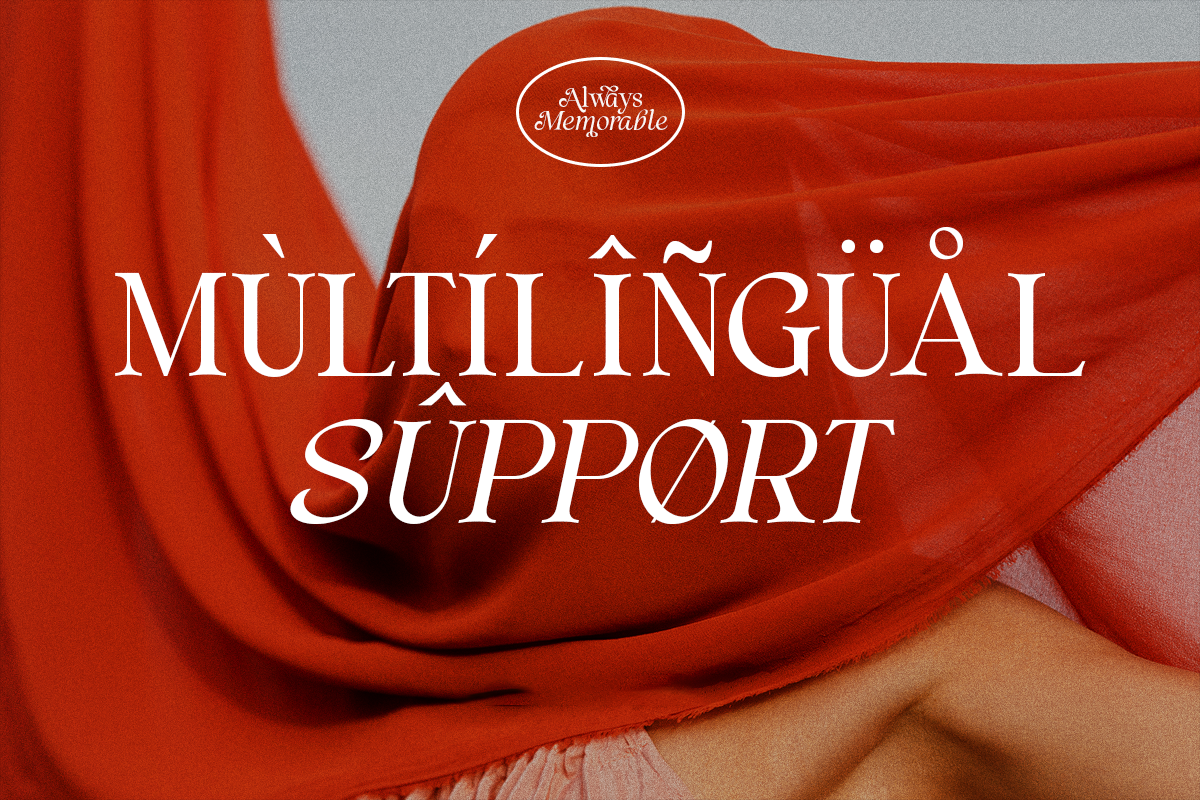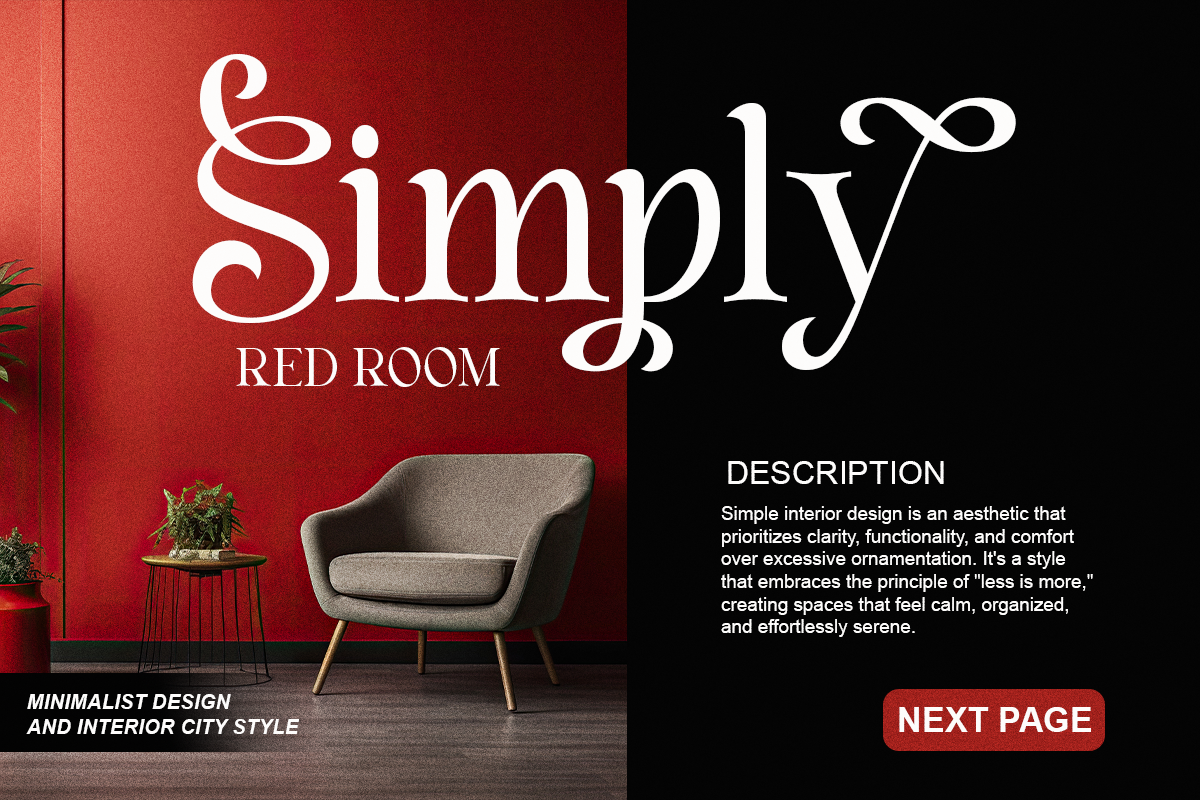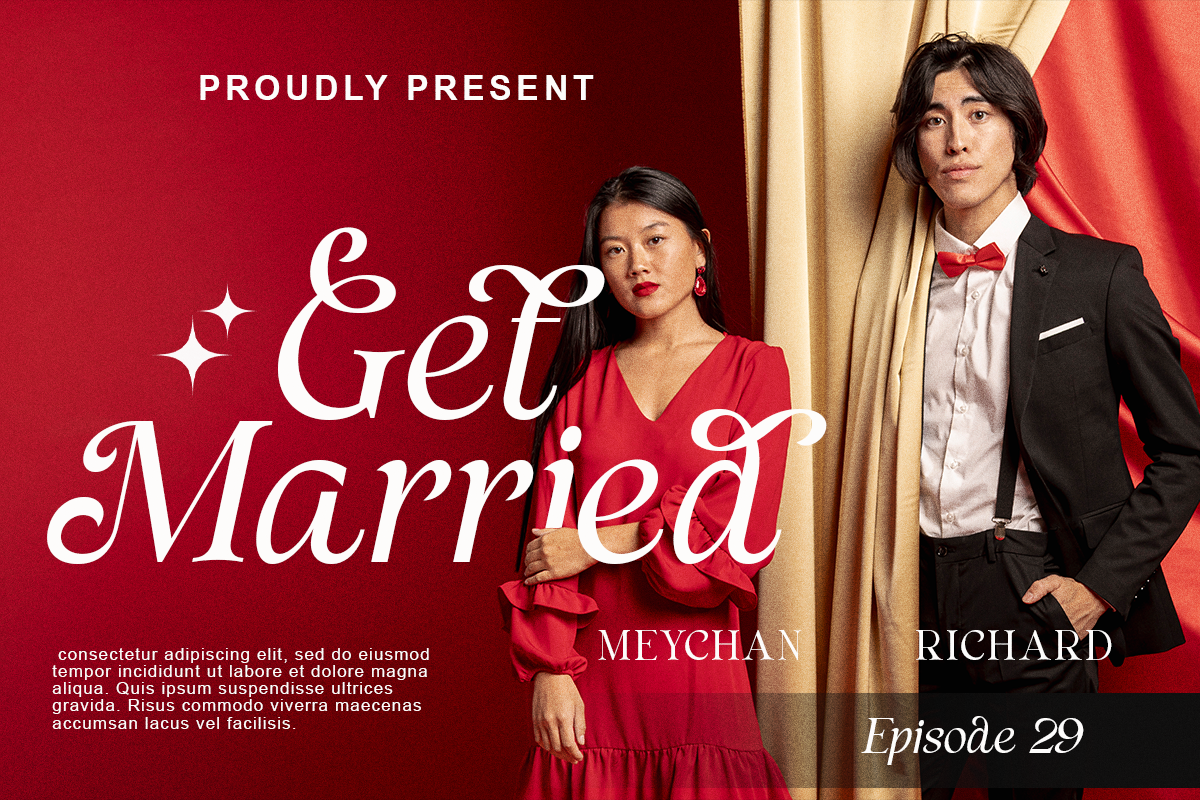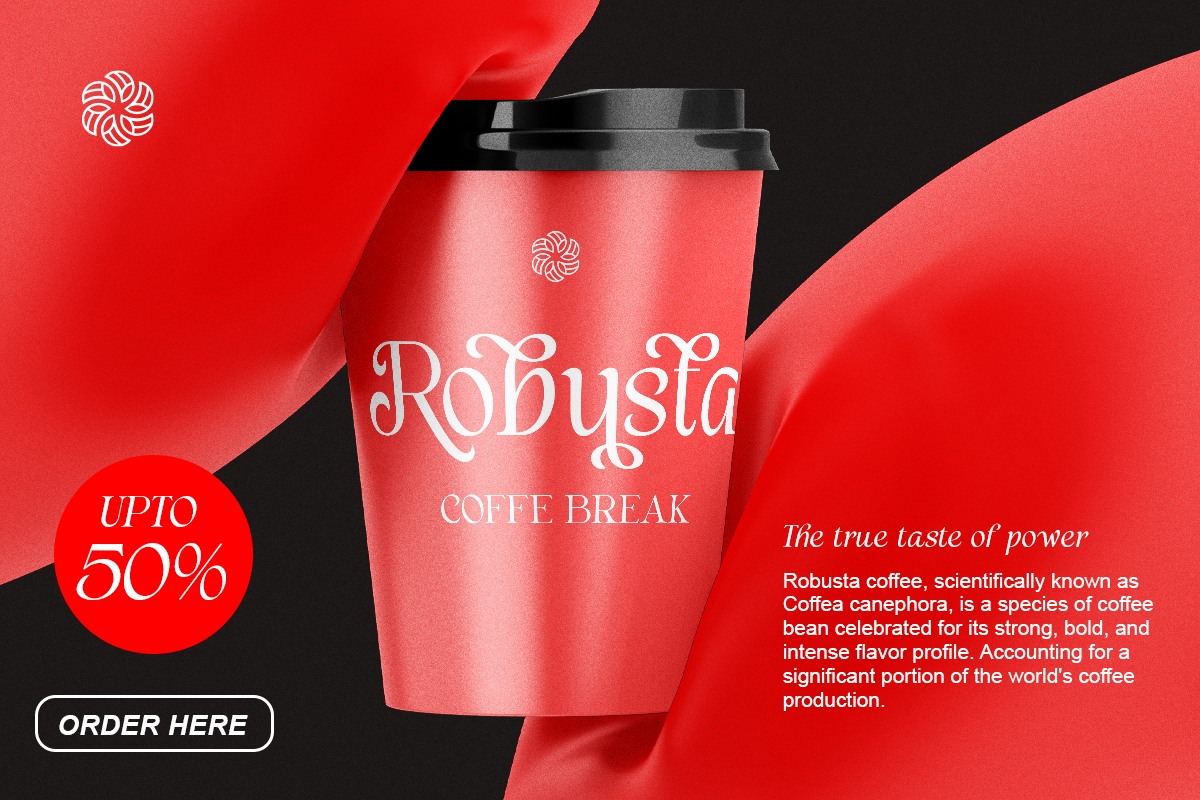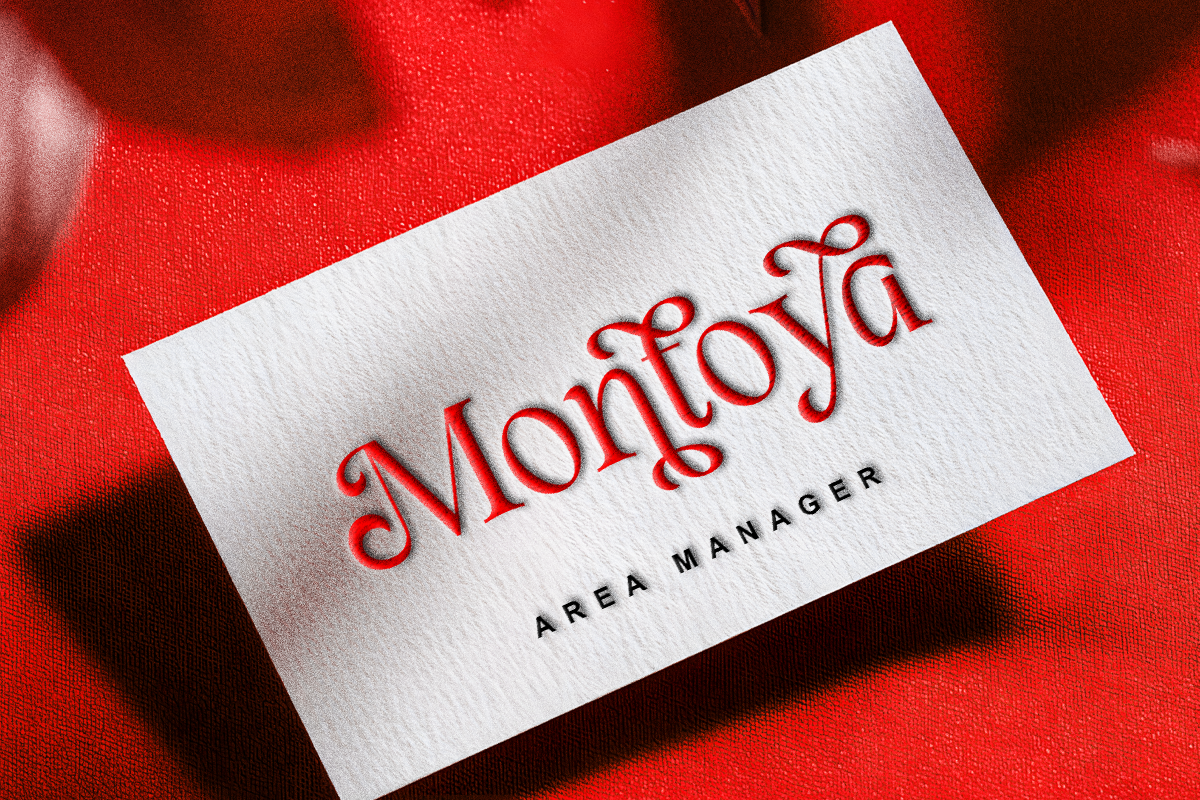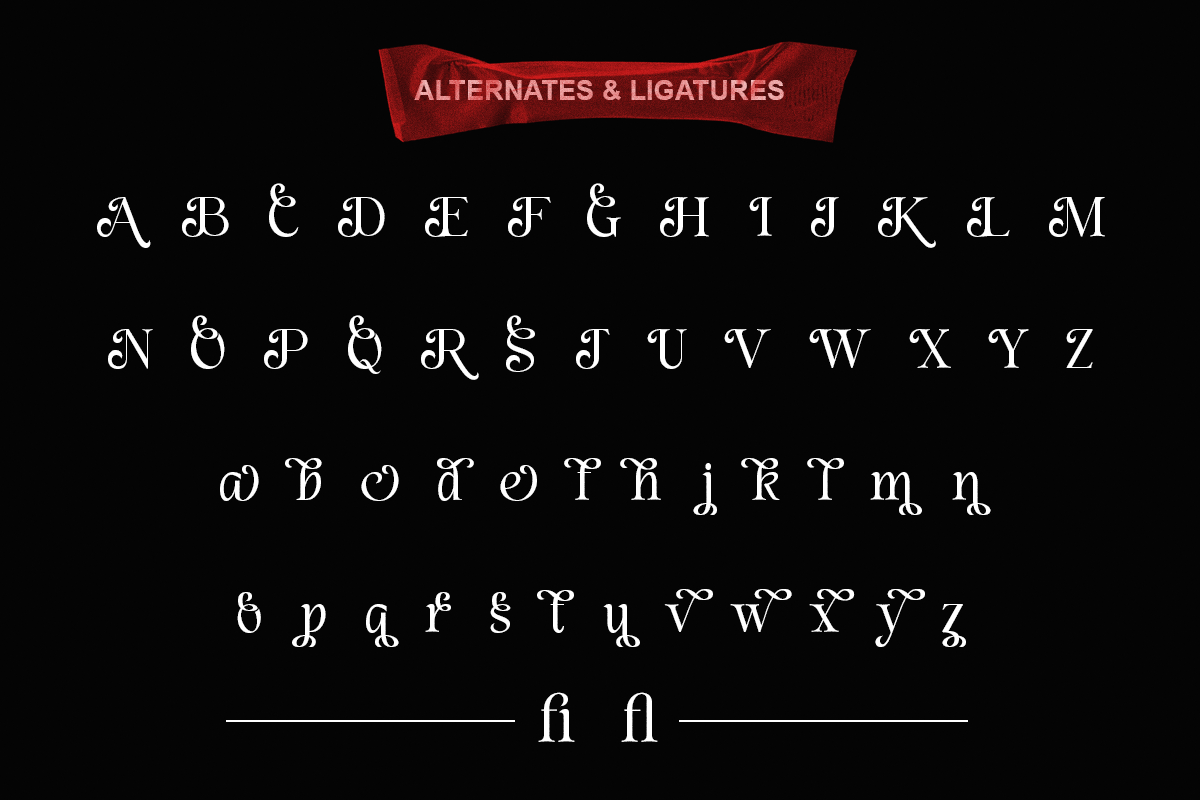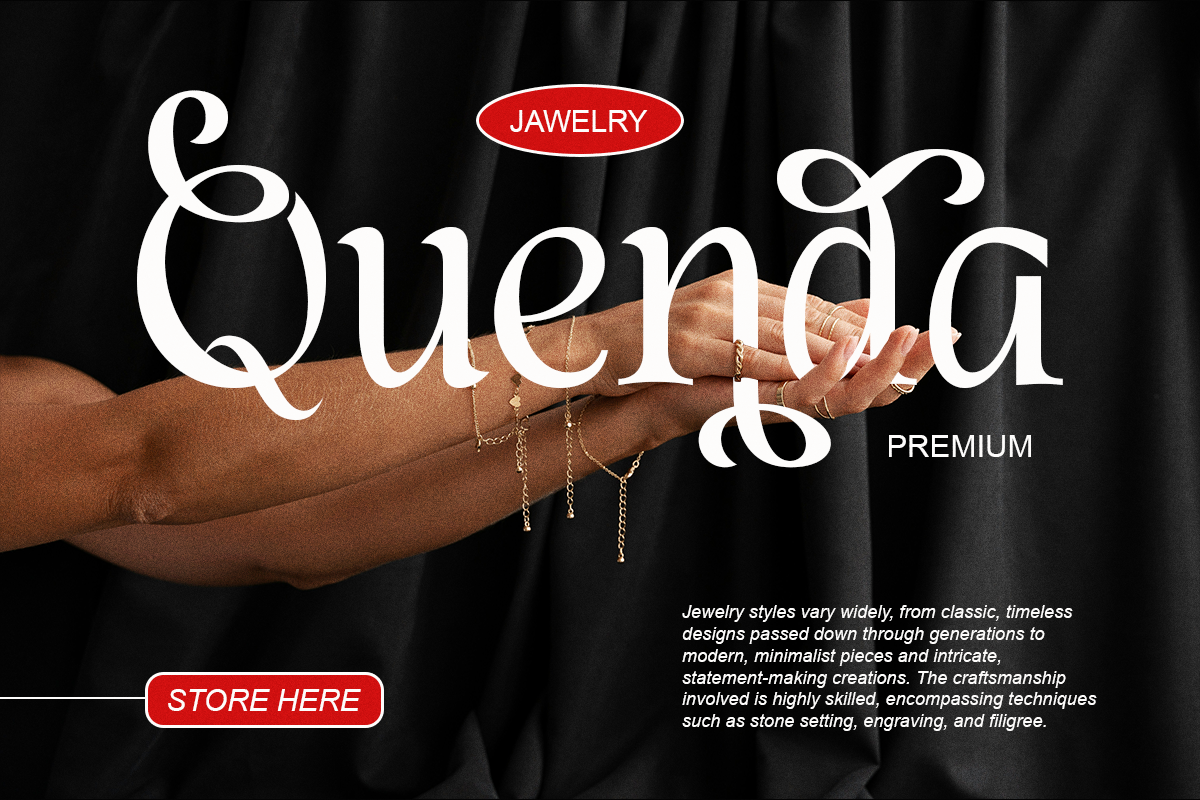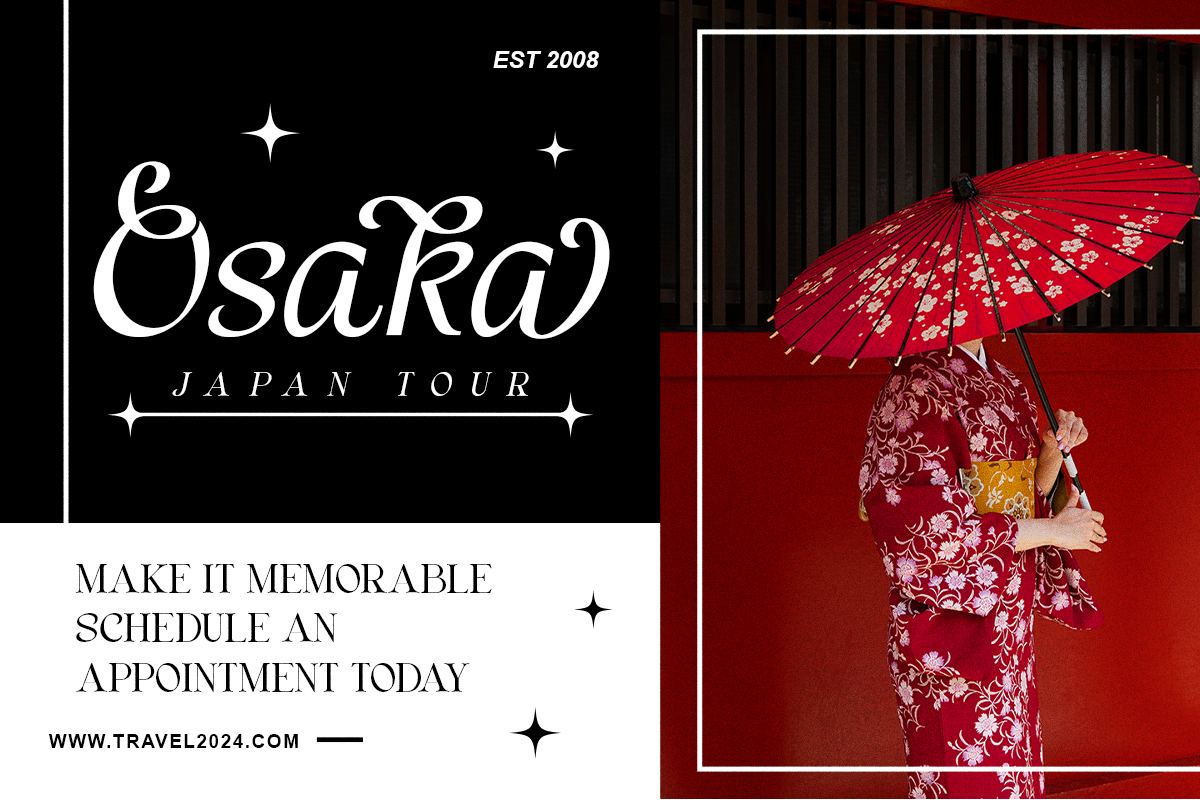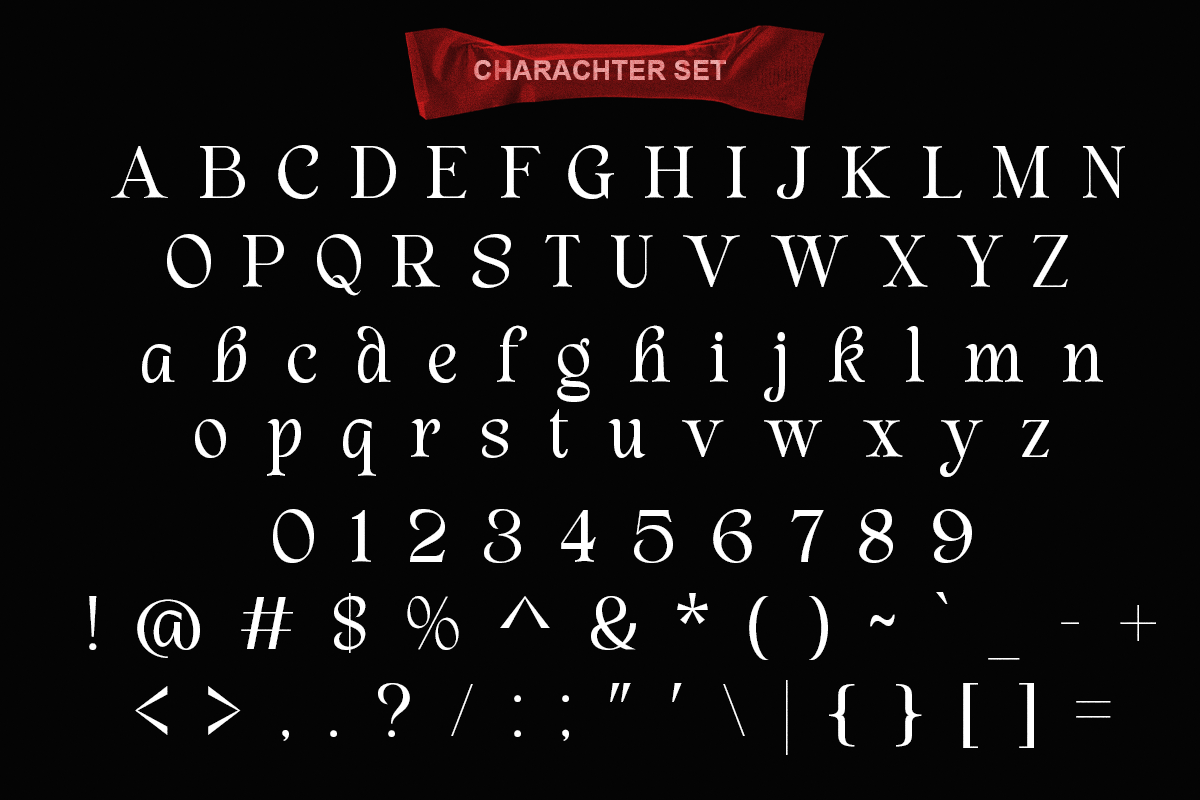
Always Memorable - Luxury Branding
Always Memorable is luxury branding serif font with a romantic touch. Classy, fun while keeping in touch with the modern time. Quintessentially timeless with curved alternates character. The Italic and Regular styles give you flexibility—perfect for everything from luxury branding to lifestyle logos, wedding invitation, fashion, magazine, and editorial titles.
- Stylish Alternates